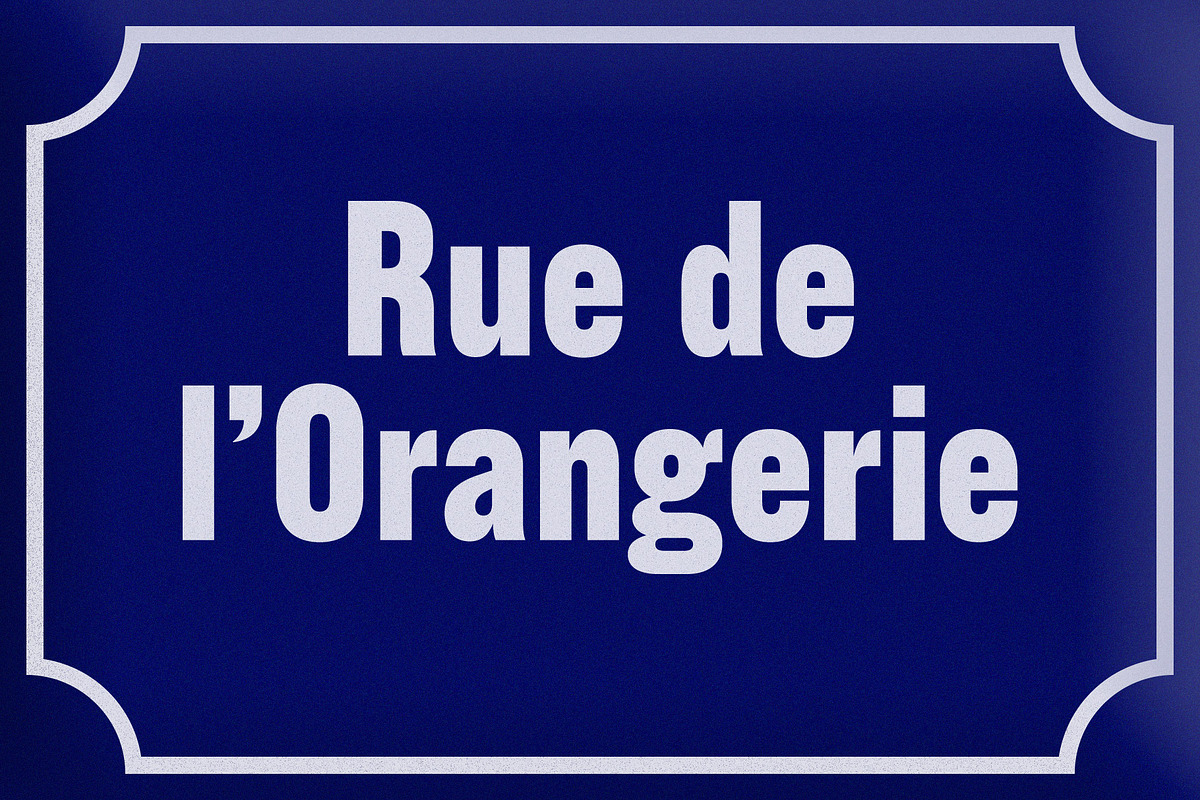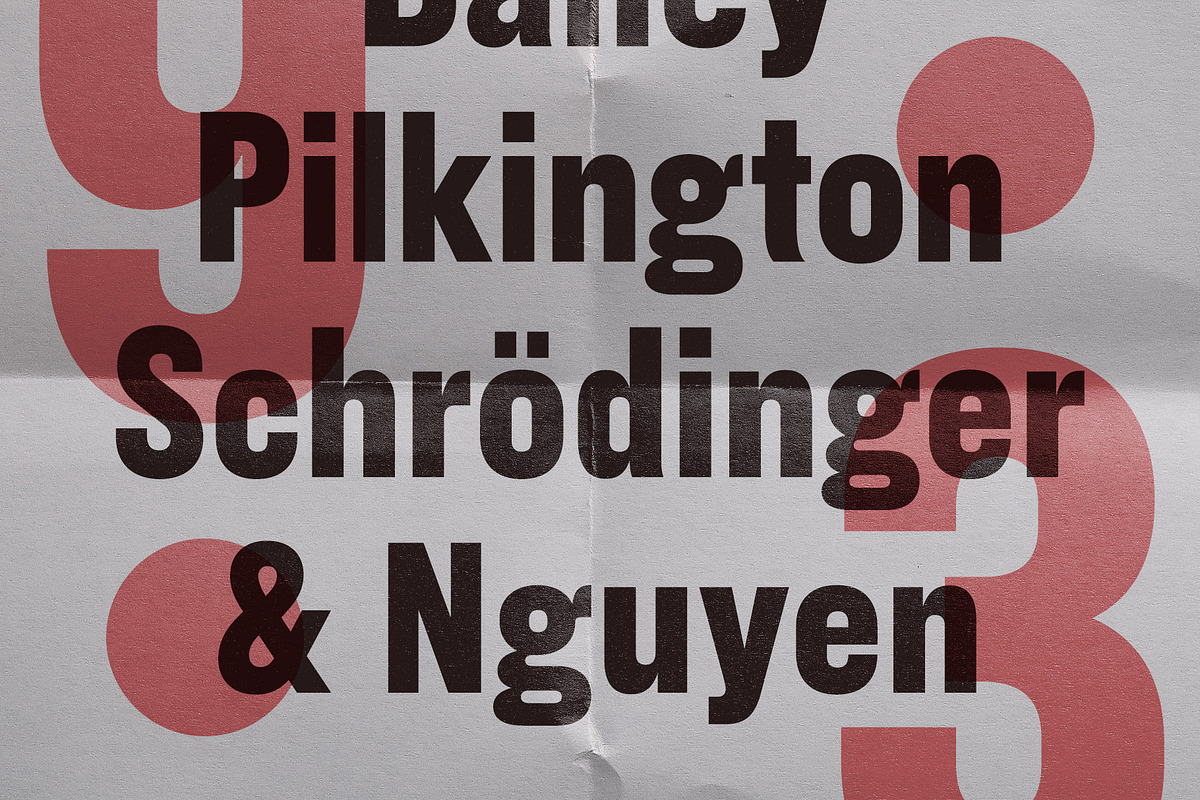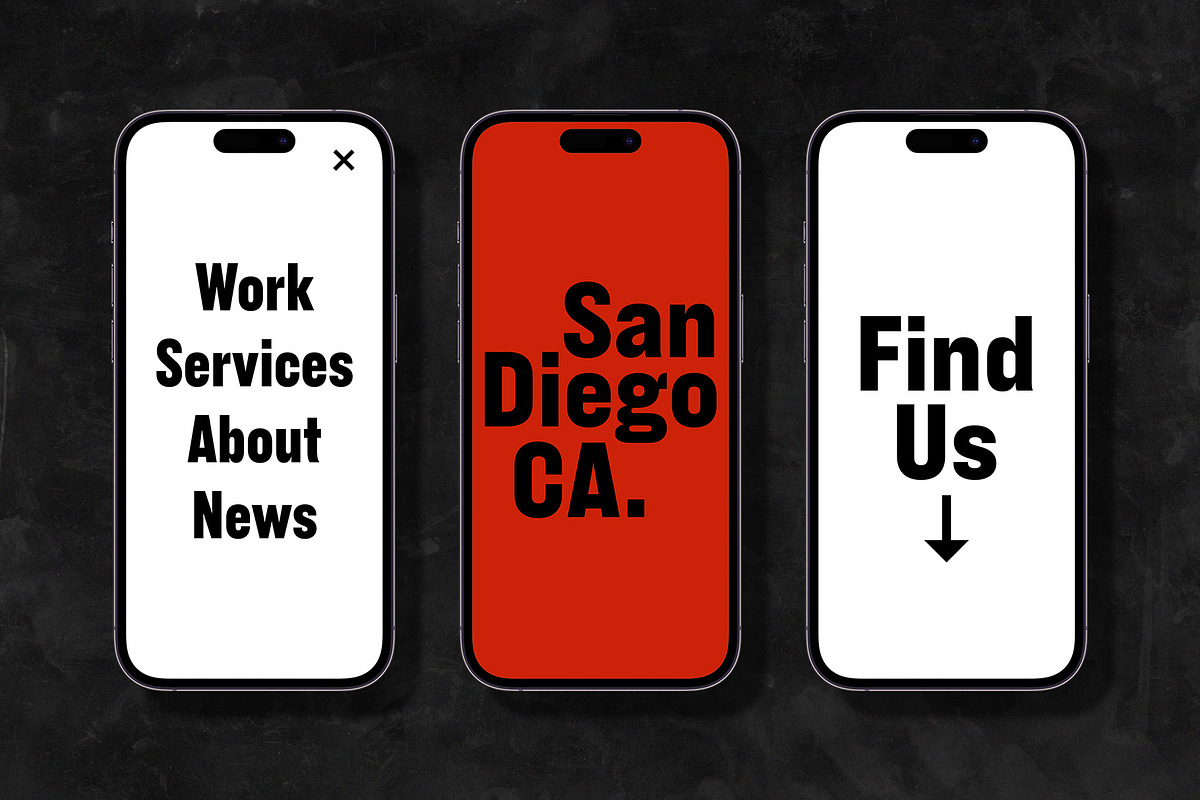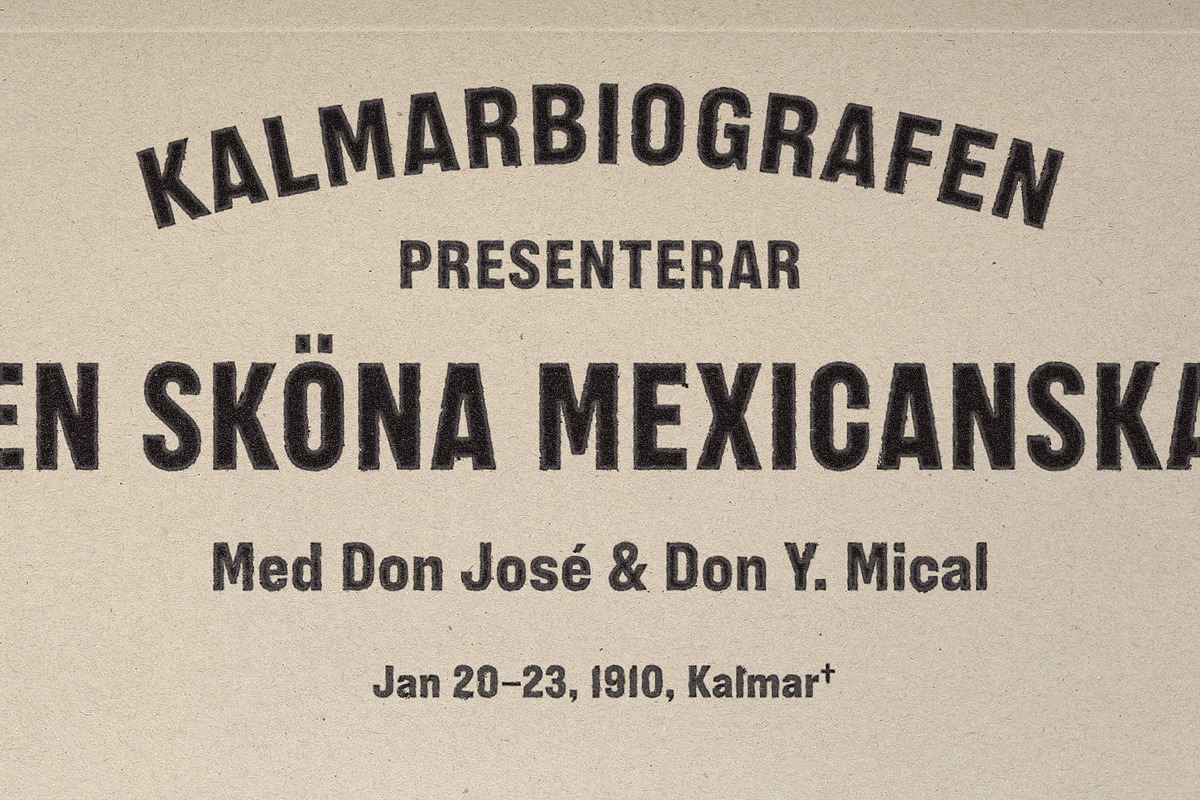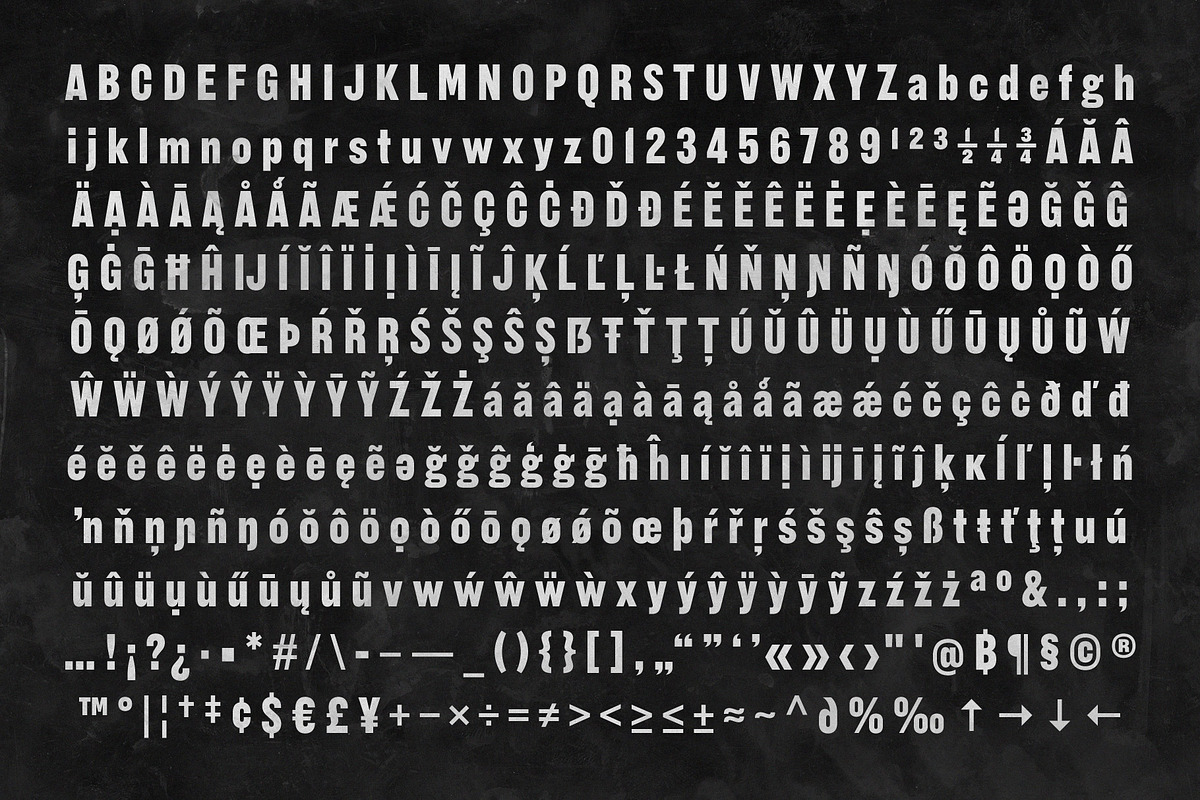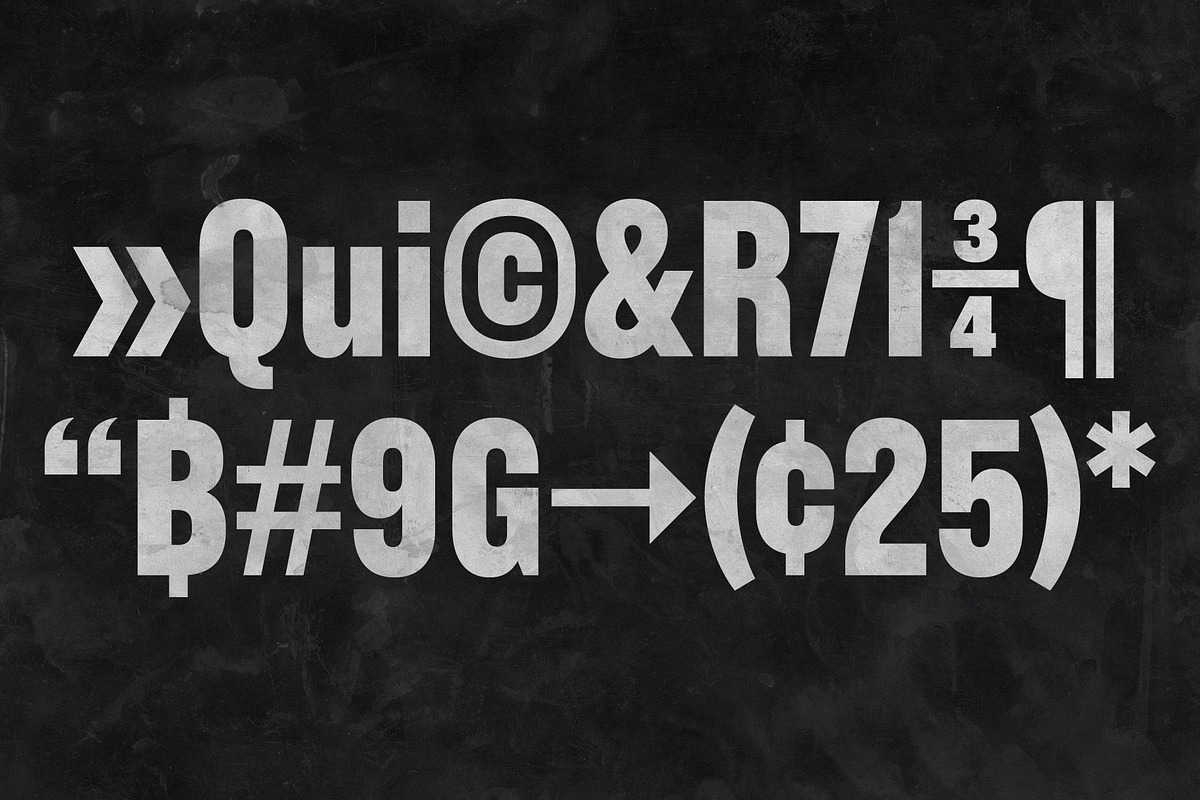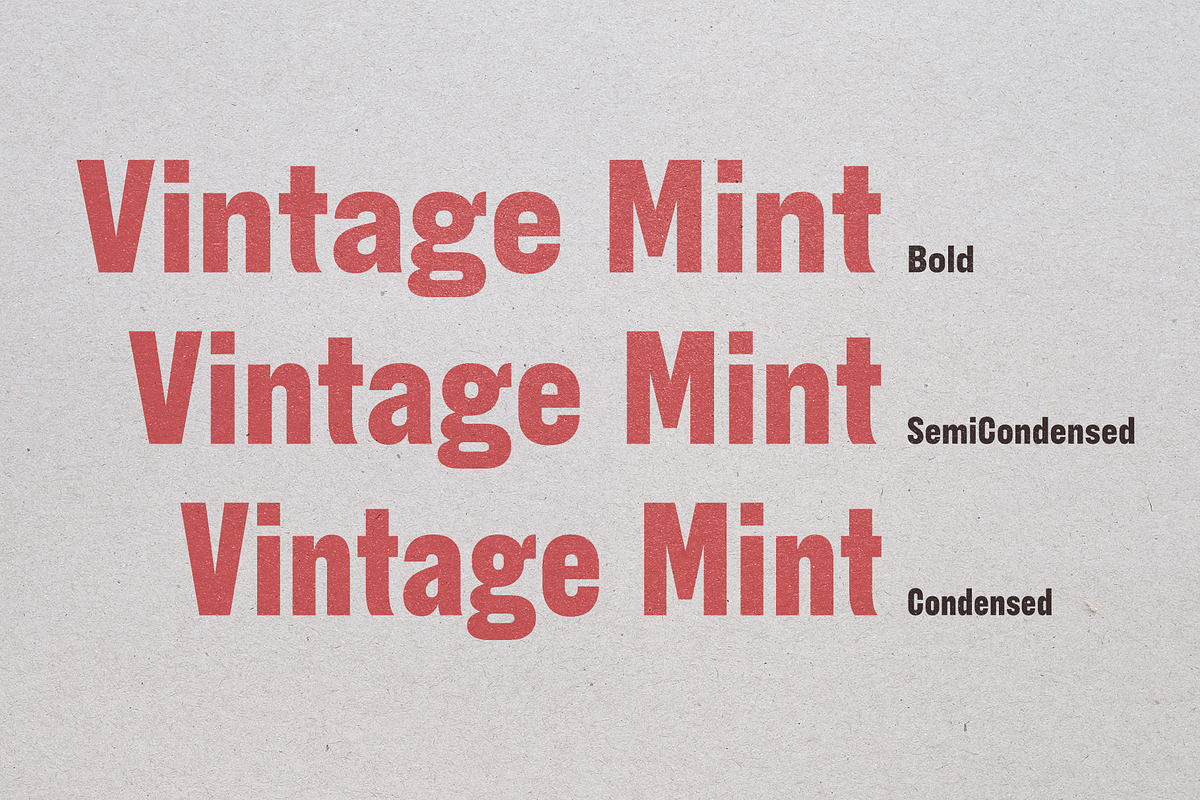
Vintage Mint | Family with 3 widths
Inspired by imperfect grotesque letters on movie theater programs from the early 1900s. Vintage Mint blends vintage idiosyncrasies with contemporary design principles. Available in 3 widths to fit into your layouts. Perfect for your designs from bygone years.